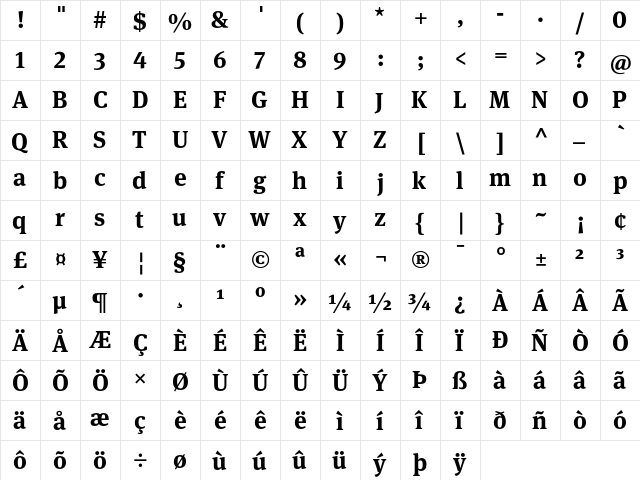
MetaSerifLf-Bold Regular
Design Context for MetaSerifLf-Bold Typeface
MetaSerifLf-Bold brings classic typographic sensibility to the table — its serifs and measured letterforms reflect centuries of print heritage. Its bold stroke weight gives it real presence on the page.
Pro Tip: Set MetaSerifLf-Bold with slightly loose tracking in headlines to let each letterform's detail read clearly at display sizes.